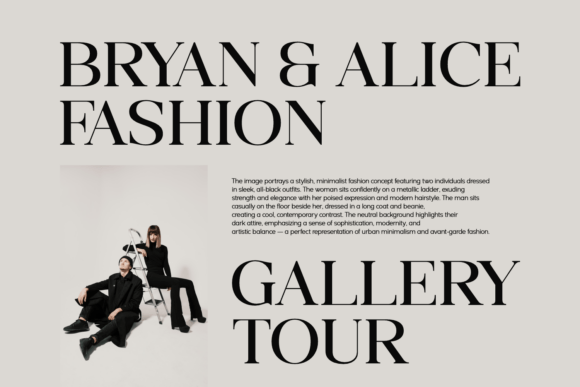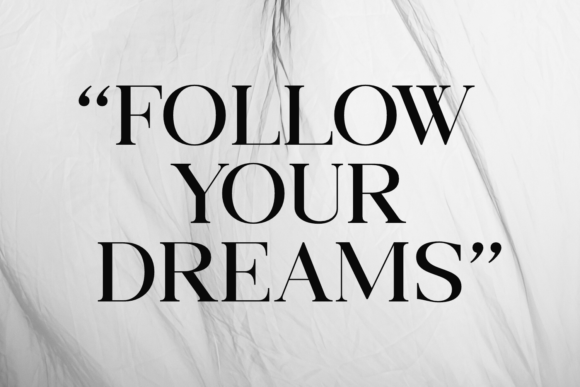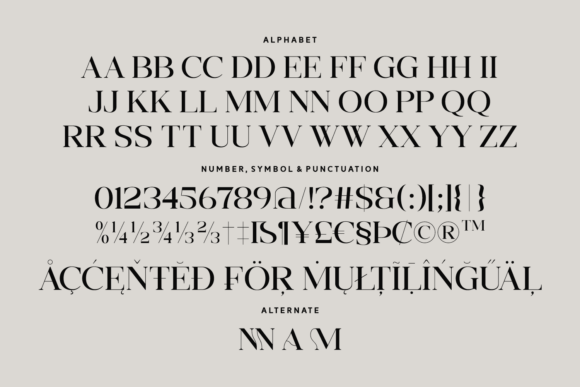
Introduction to Menno Font
Menno is a modern serif typeface that’s elegant, minimal, and fashion-forward.
Featuring thin strokes, high contrast, and unique stylized characters (especially the M and N), Menno is perfect for luxury branding, fashion editorials, packaging, upscale invitations, and logo designs It strikes a balance between traditional serif aesthetics and modern flair, adding instant sophistication to any project.
Key Features of Menno Font
Why Choose Menno Font?
Menno Font offers exceptional quality and versatility, making it a valuable addition to your design toolkit. Whether you’re creating for personal projects or commercial use, Menno Font delivers professional results.